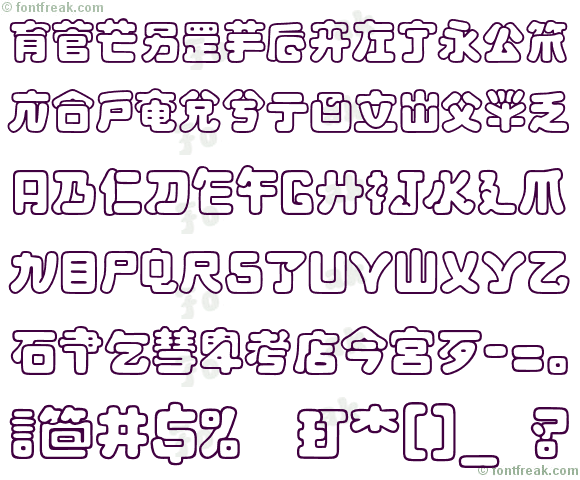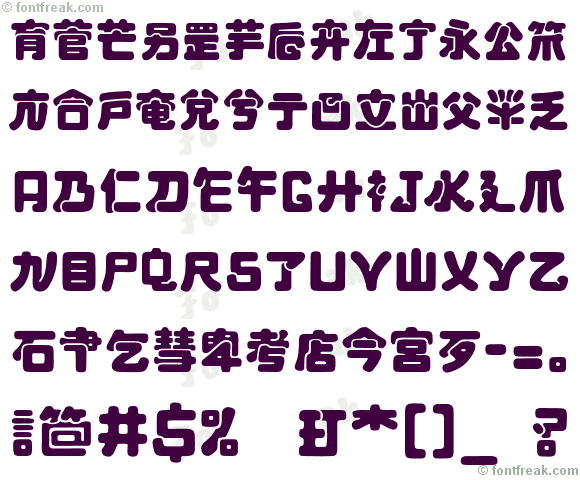
MaximageJululuOutline
MaximageJululu
About MaximageJululuOutline
MaximageJululuOutline is a captivating display font that blends playful aesthetics with a bold outline style. This font is characterized by its thick stroke weight and uniform spacing, creating an eye-catching visual impact that makes it ideal for various creative projects. The outlined appearance lends a sense of modernity while maintaining a fun, quirky vibe, making it stand out in a crowded design landscape.
The font's distinctive features include a lack of contrast in stroke weight, ensuring that the outline remains the focal point. This simplicity allows for versatility in design applications, making it perfect for use cases such as vibrant wedding invitations, attention-grabbing movie posters, and engaging restaurant menus. Its playful nature also suits advertising campaigns that aim to attract a youthful audience, as well as social media graphics that require a touch of whimsy.
Targeted primarily at graphic designers, small business owners, and content creators, MaximageJululuOutline offers a unique option for those looking to infuse their projects with personality. The font's free license allows users to incorporate it effortlessly into both personal and commercial endeavors, making it an accessible choice for anyone seeking to elevate their visual communications.
What sets the MaximageJululuOutline font apart is its ability to combine simplicity with a bold statement. It provides designers with a versatile tool that can convey fun and creativity without overwhelming the viewer. Whether you're crafting a playful branding strategy or designing a unique print layout, the MaximageJululuOutline font free download is an excellent addition to your toolkit, allowing you to express your vision in a distinctive and memorable way.